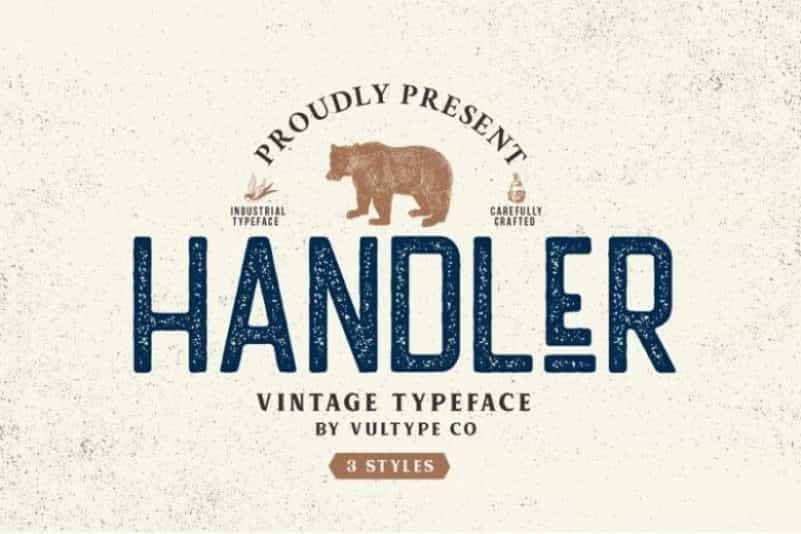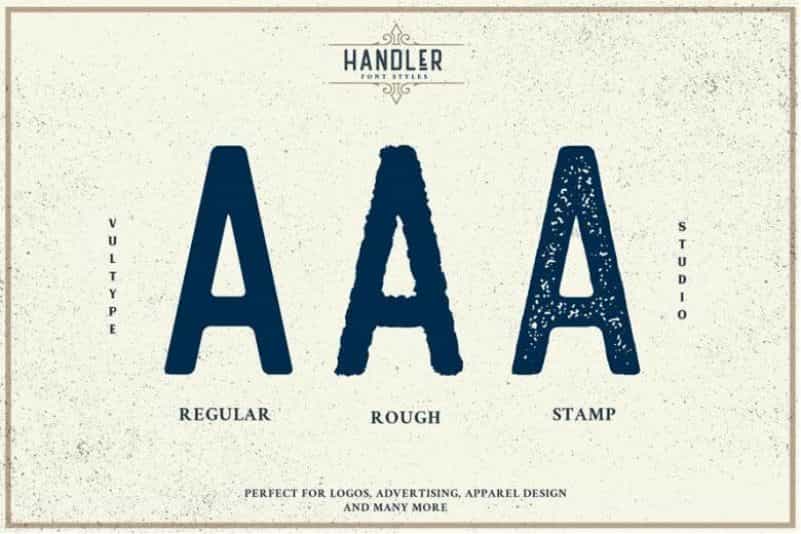
It is a universal sans serif font that conveys the old-fashioned vibe. You have a photo that you want to decorate for your social network or either create a trend branding for your product. Handler Font – Will be the best to do these things. The handler was made and released by Vultype Co.